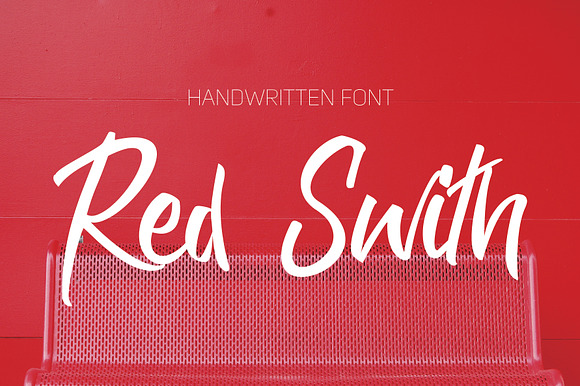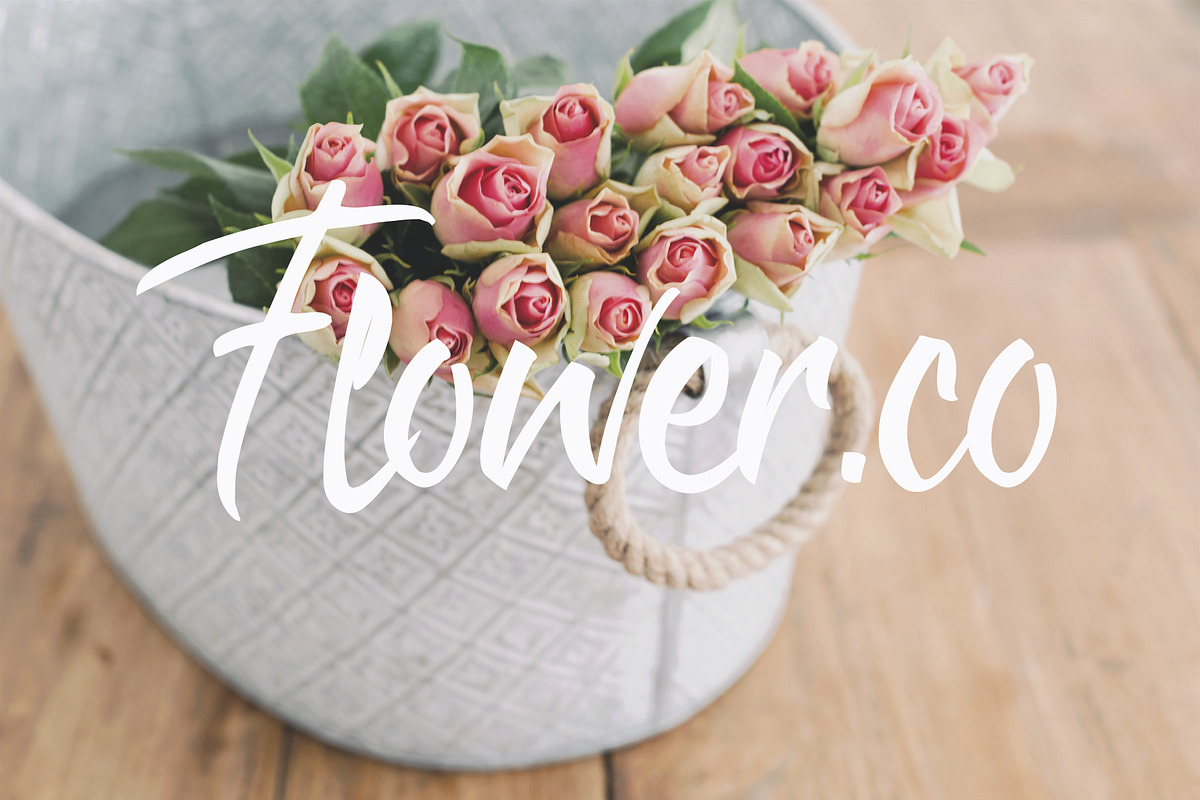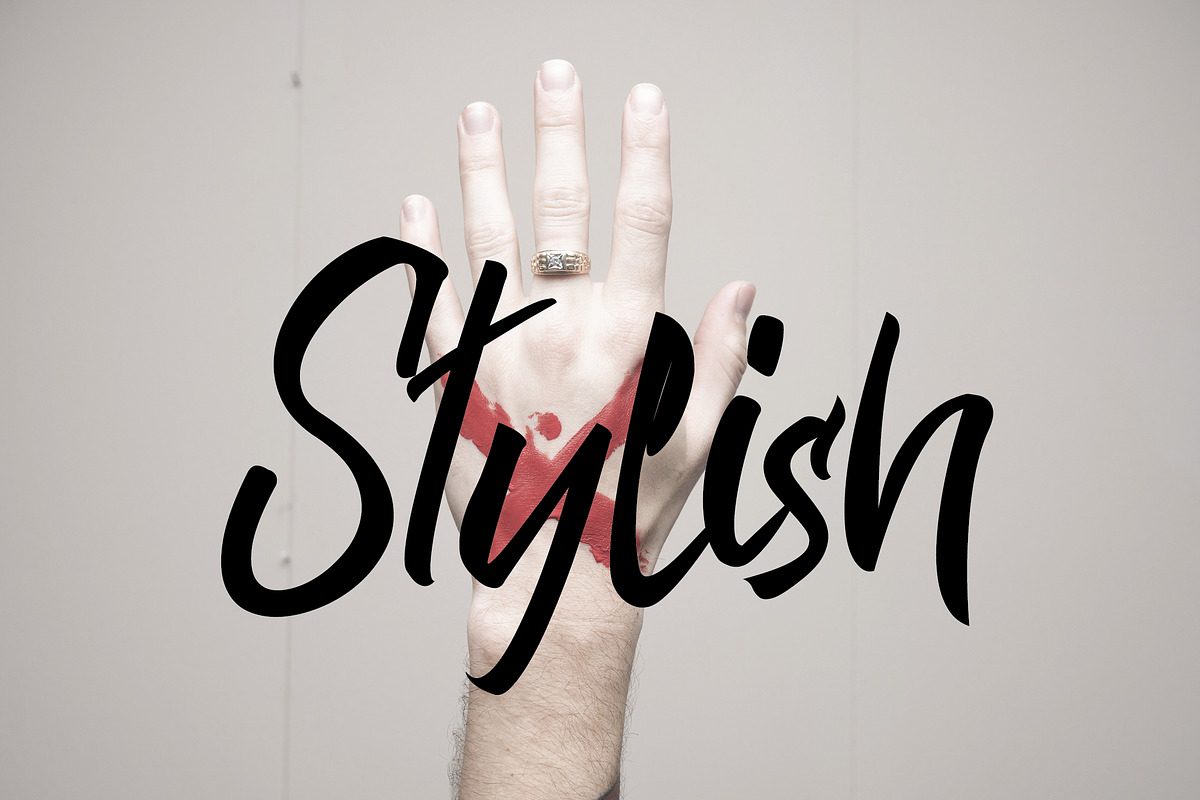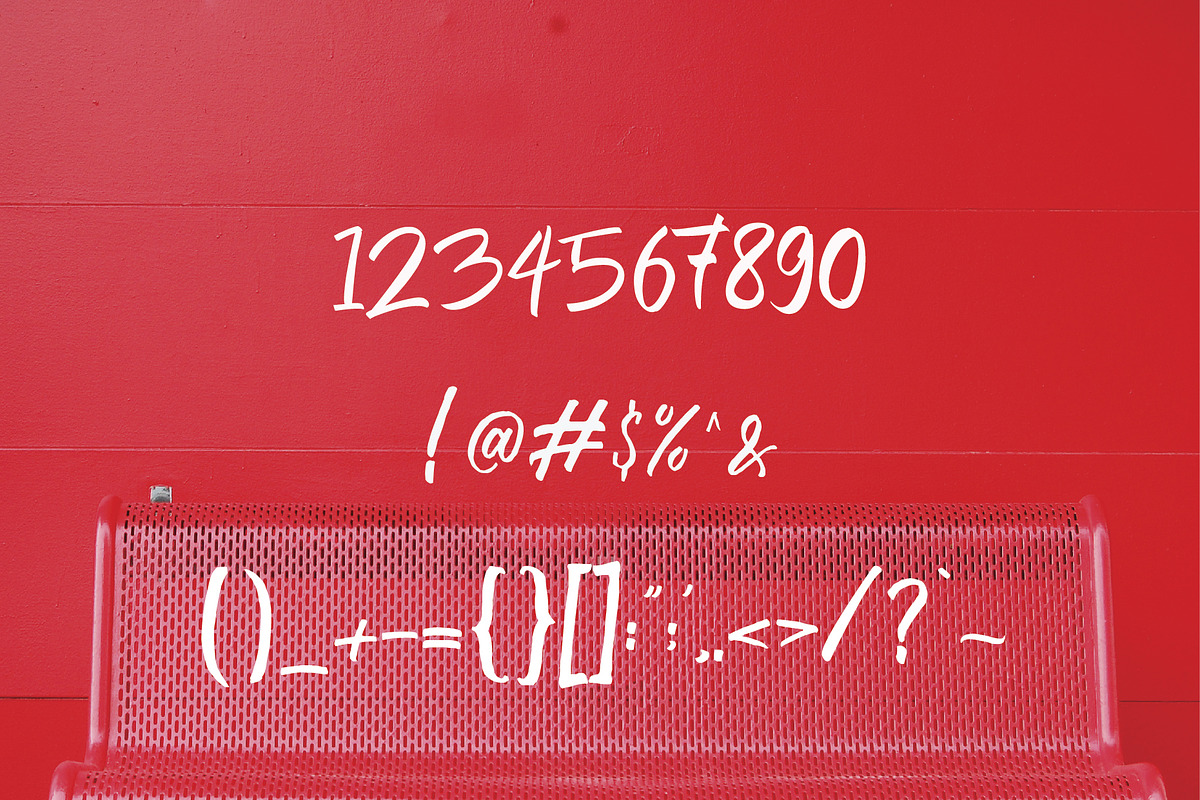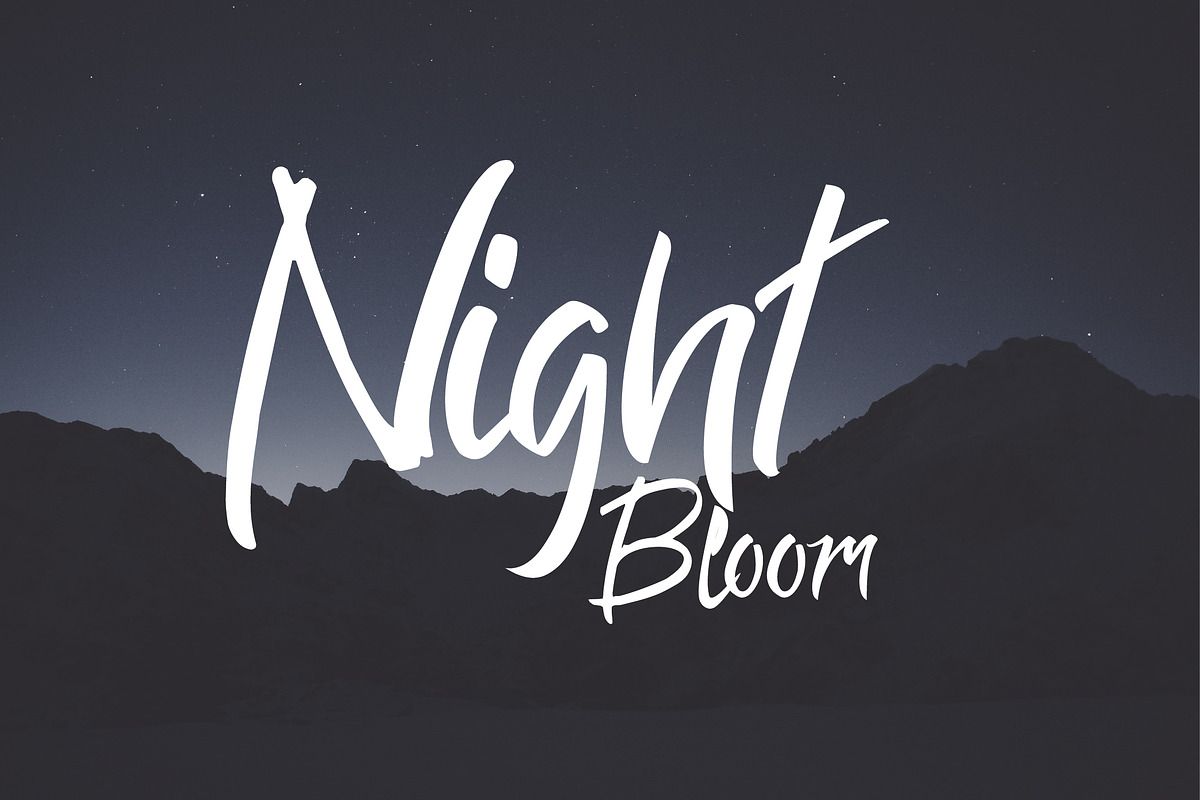
Red Swith Font
INTRODUCING...! Red Swith Font
Why Red Swith Font is worth a look
Red Swith Font by FahmiType fits naturally into Branding, posters, packaging, typography.